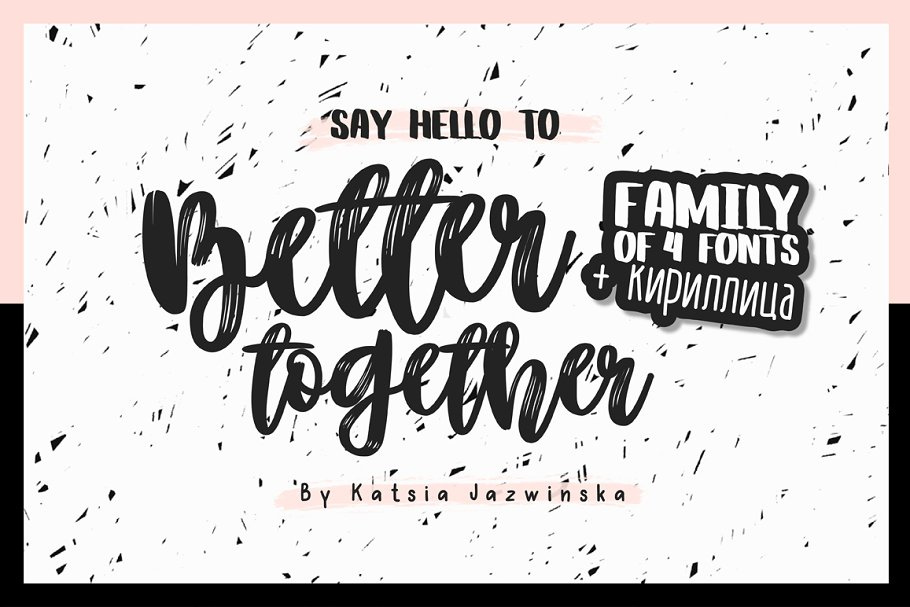
Better Together Font
This font works wonderfully for wedding invitations, greeting cards, logos, social media graphics, posters, and branding projects. Its playful yet elegant style makes it suitable for both personal and professional designs.
What makes Better Together Font Free Download exciting is its warm, approachable design combined with clean, stylish curves. It adds personality and a sense of connection to any text, making your creations feel more engaging and memorable.
The font family of Better Together includes weights and styles such as Regular, Italic, and Bold, giving designers the flexibility to create hierarchy and emphasis within their layouts.
Overall, Better Together Font Free Download is an excellent choice for designers looking to inject friendliness and creativity into their projects. From heartfelt invitations to eye-catching branding, this font enhances every design with charm and style.